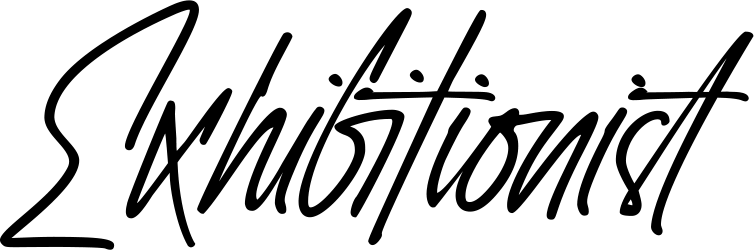
Exhibitionist Font
Looking for a handwriting font but something, not too basic! Then the Exhibitionist font that has a narrow look with an italic style should be brilliant as it looks like an awesome signature. Handwriting fonts are personal, distinct, and informal.
The Exhibitionist has mixed caps alphabets, numbers, and symbols for you to create any text that you have in mind. It will look unique, in children’s books, documents, letters, tattoos, and anywhere you need a font similar to a human’s handwriting.